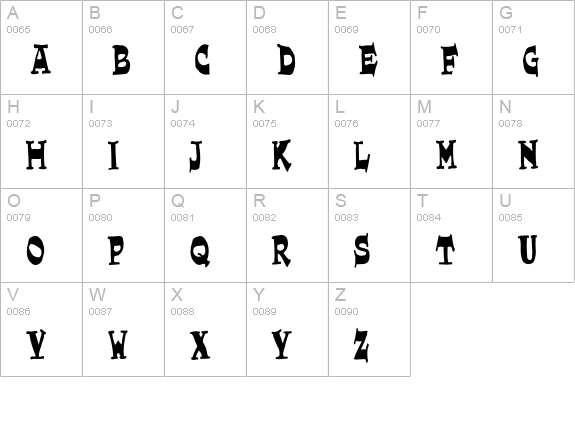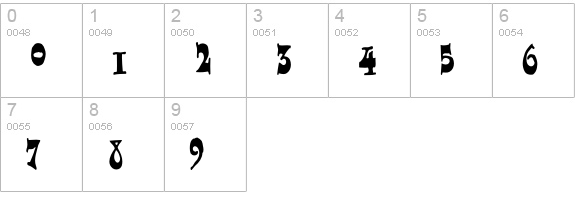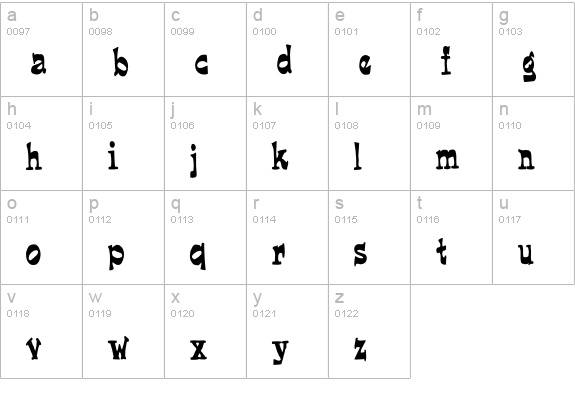
FunkyWestern Font Details
FunkyWestern font is a unique and playful typeface that combines elements of the wild west with a funky twist. This font is perfect for adding a touch of fun and flair to any design project, whether it's for posters, invitations, or branding materials. With its bold and eye-catching style, FunkyWestern is sure to make a statement and draw attention. Best of all, this font is available for free download at FontsMarket.com, making it easily accessible for all your creative needs. Embrace the spirit of the wild west with FunkyWestern font today!